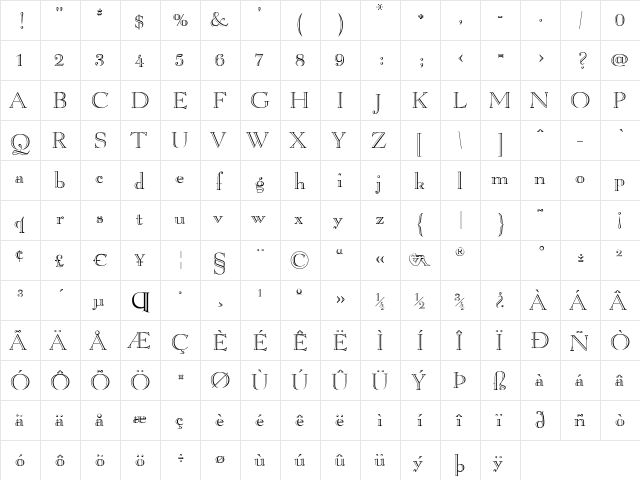
Lucianard-Open Regular
Design Context for Lucianard-Open Typeface
Lucianard-Open offers clean, dependable letterforms without strong stylistic allegiance, making it a practical choice for designers who need flexibility.